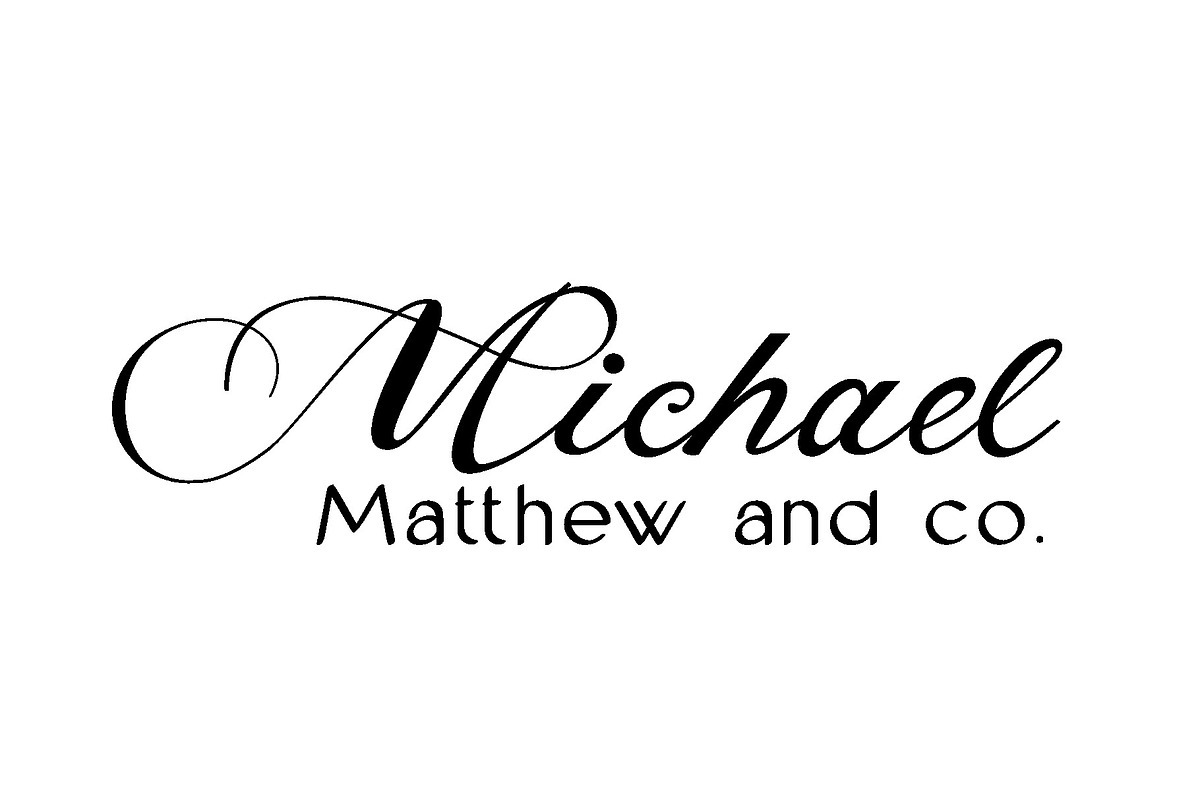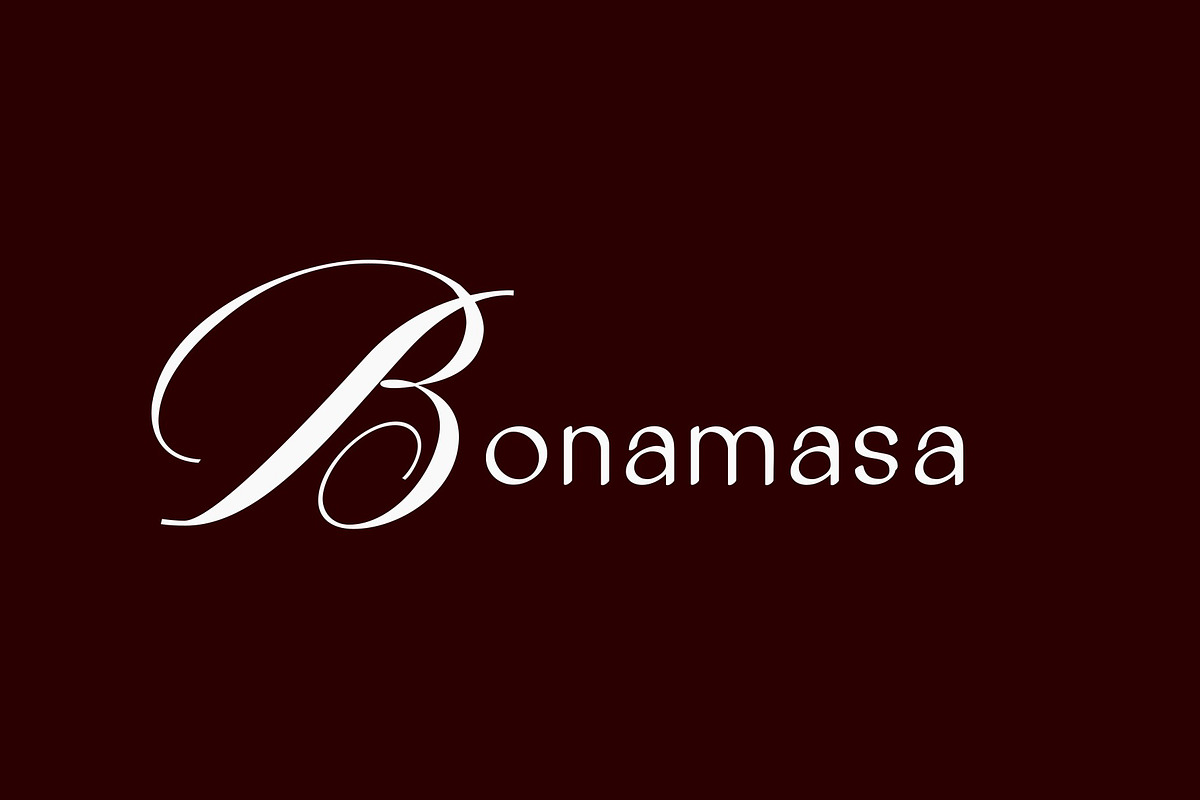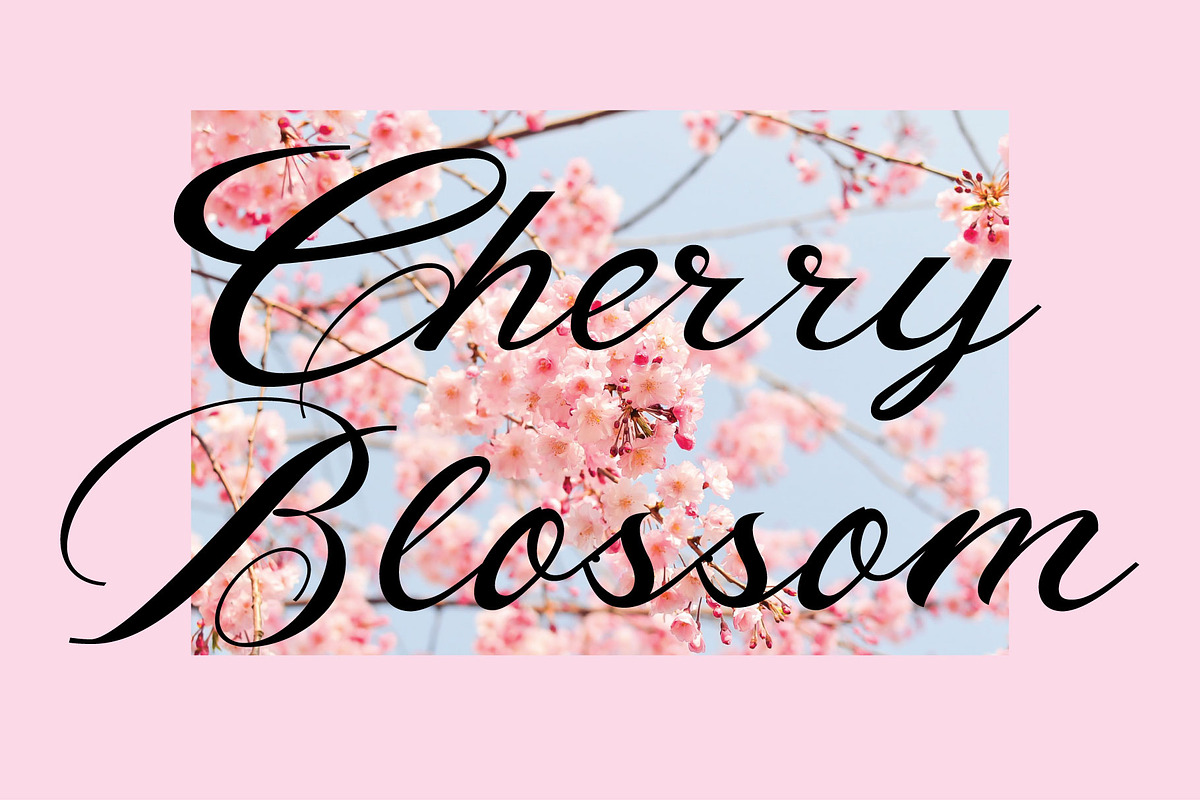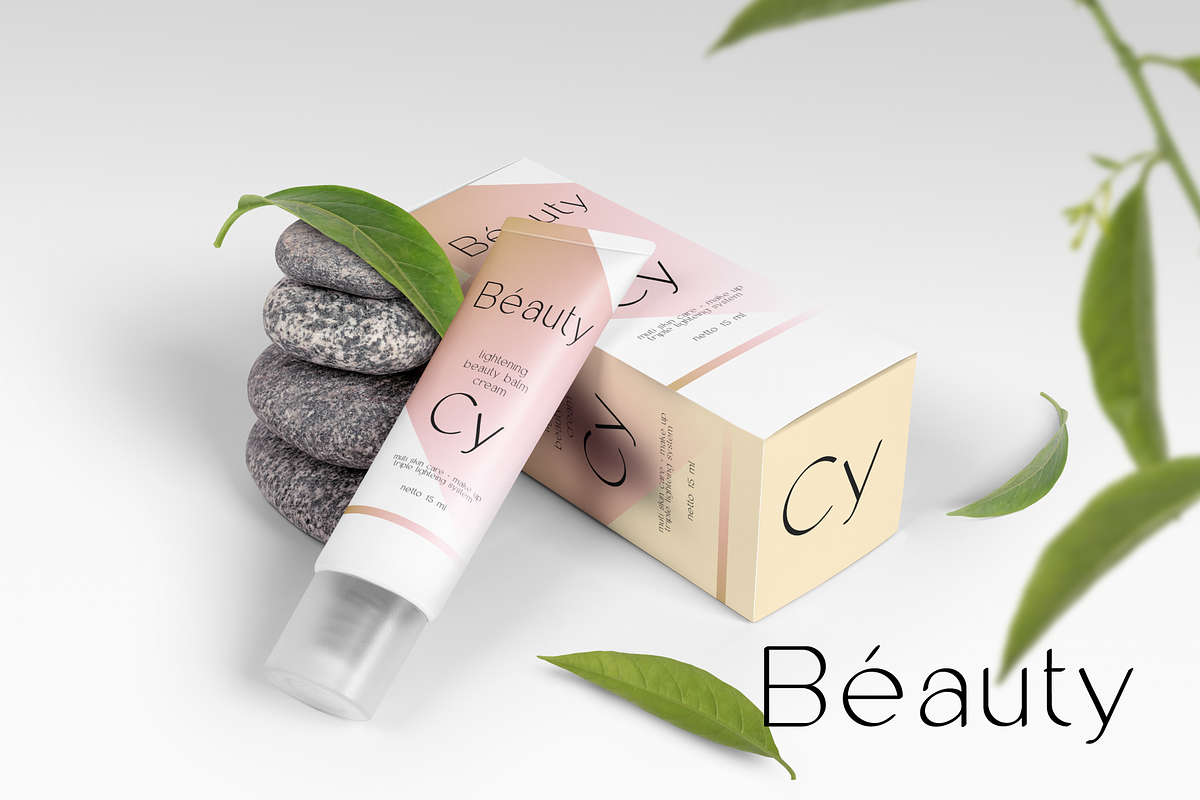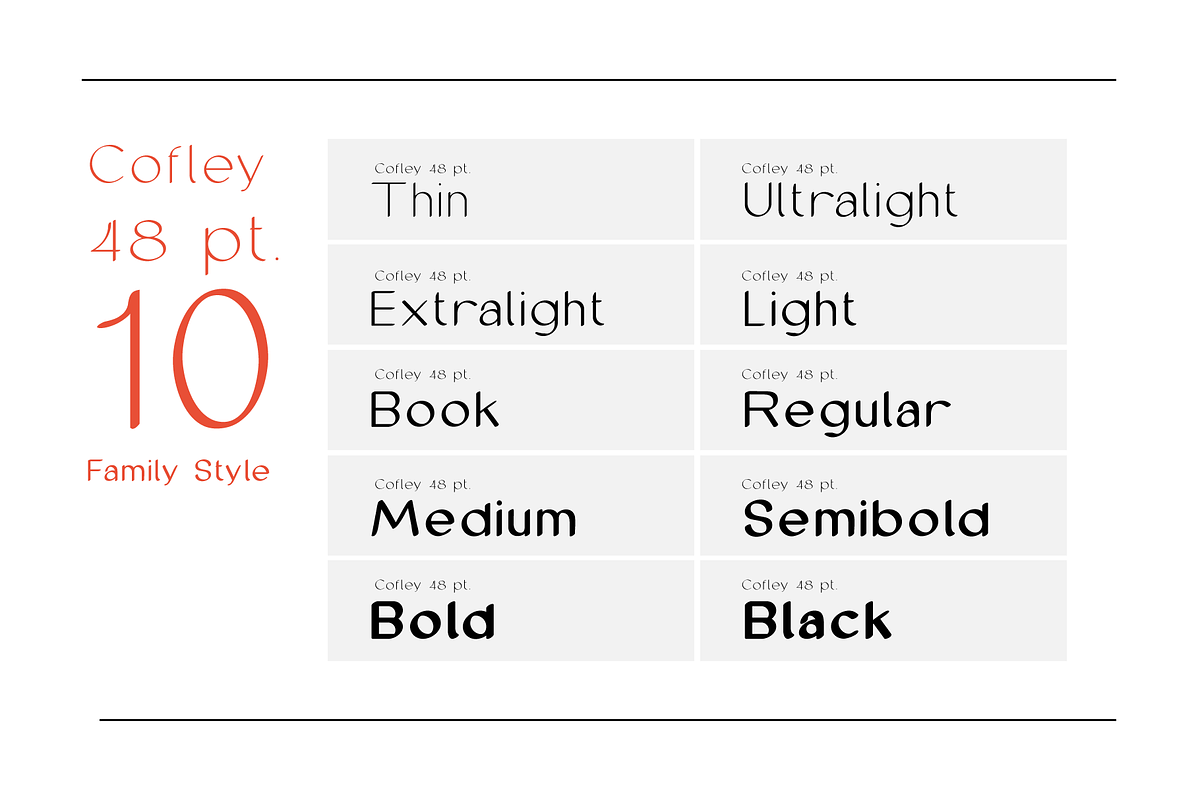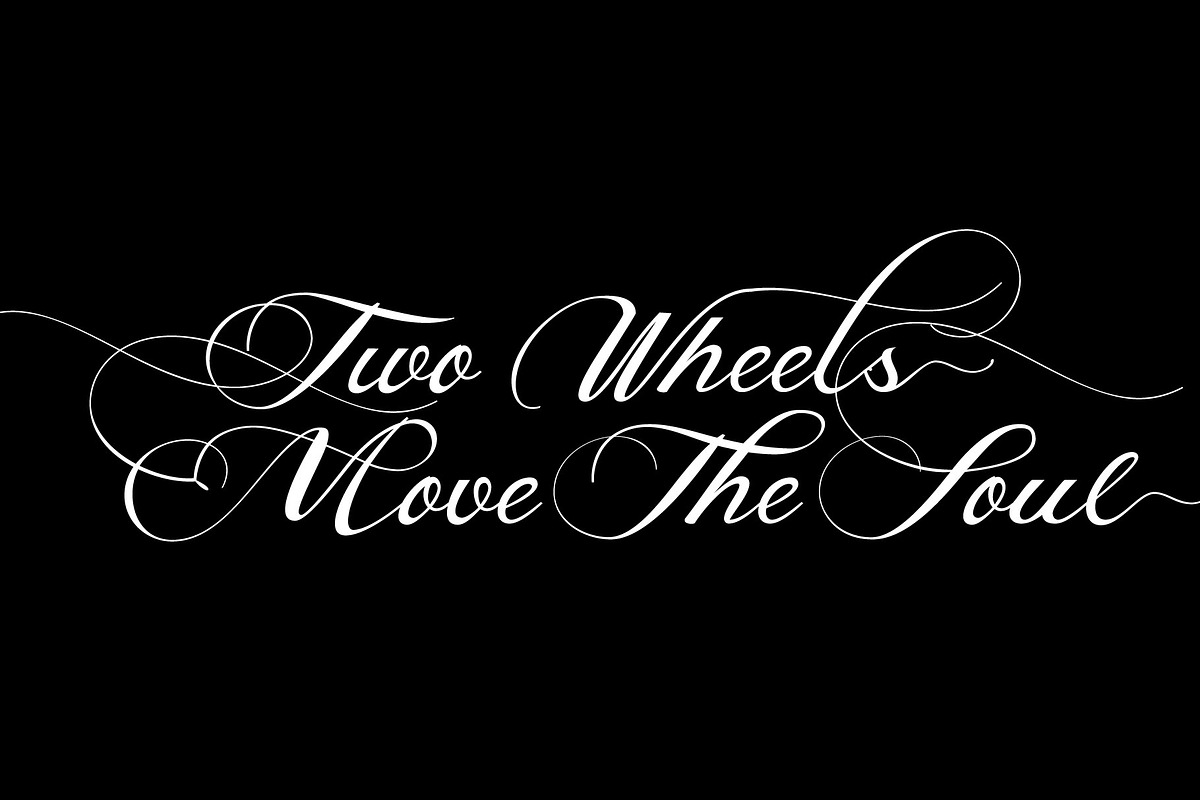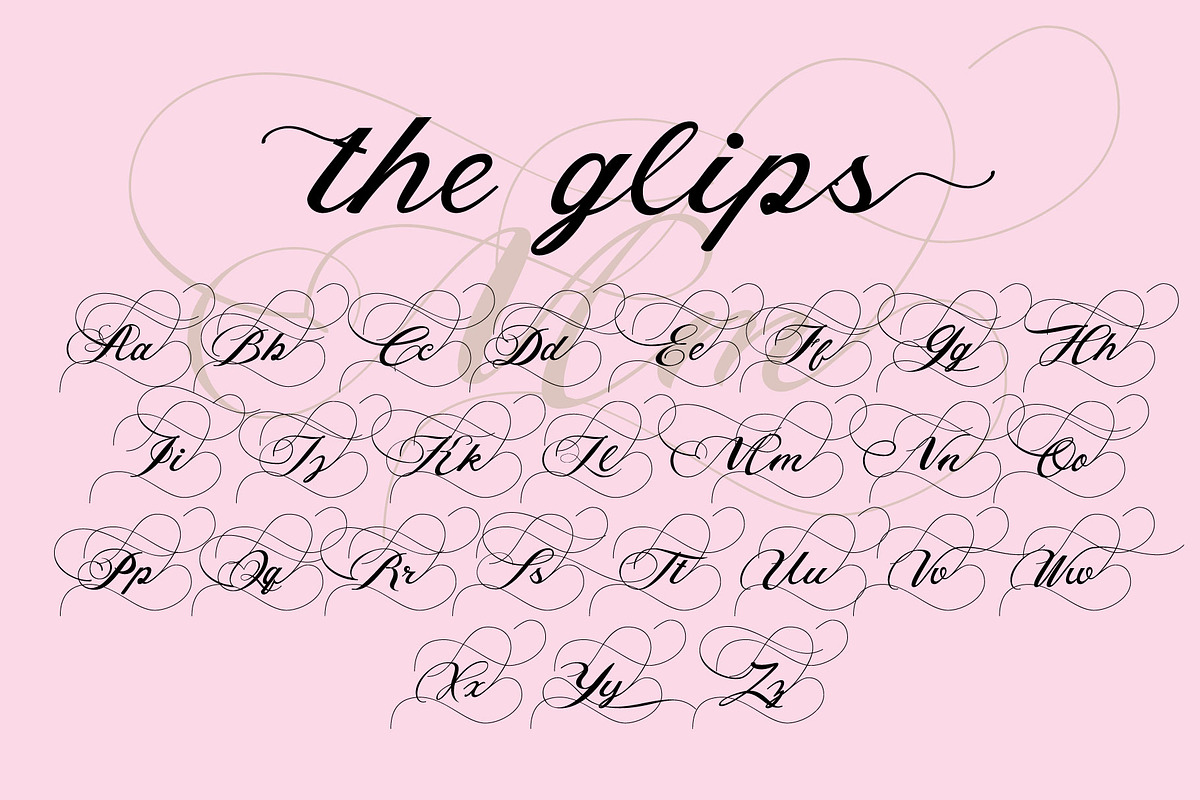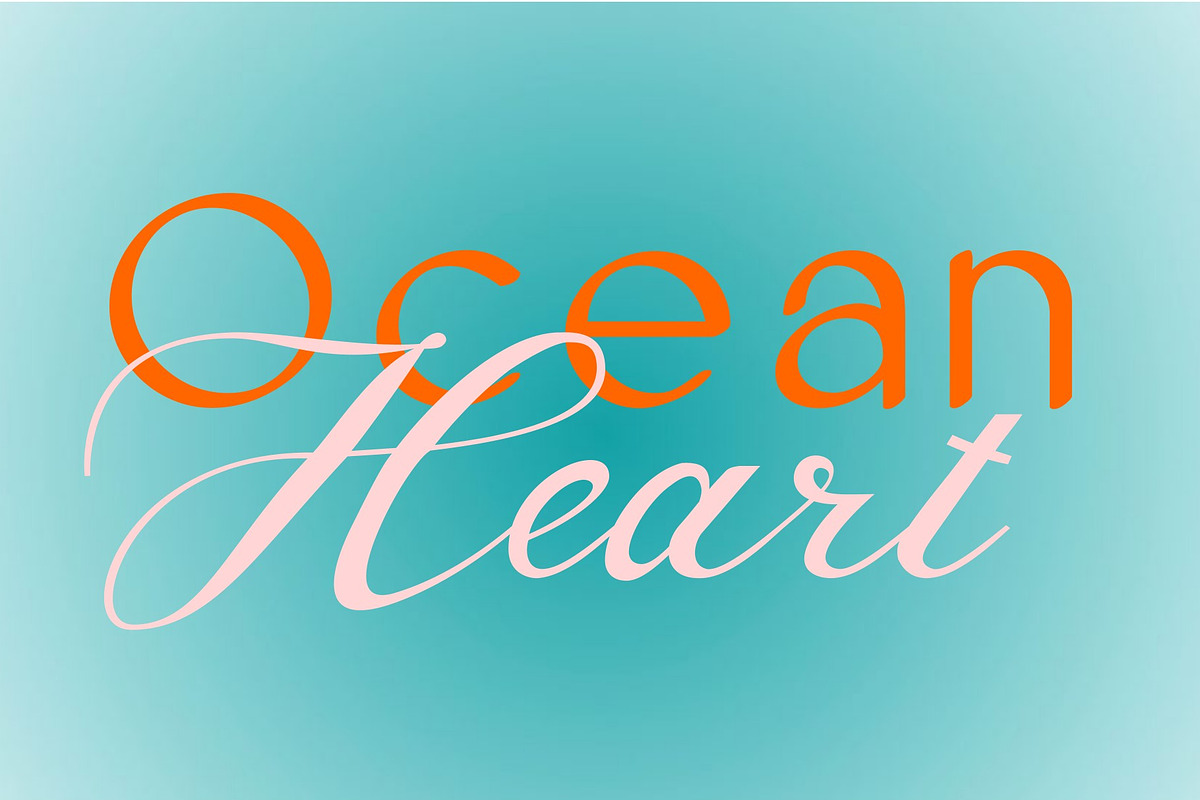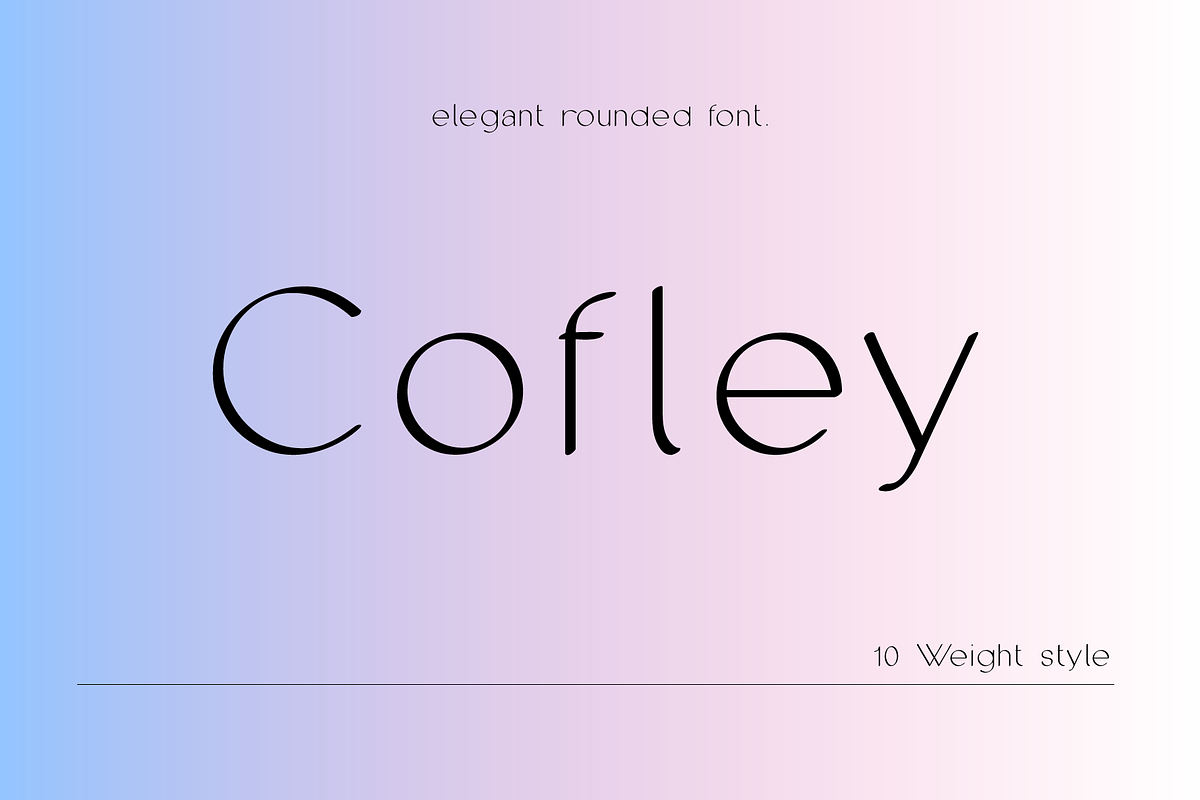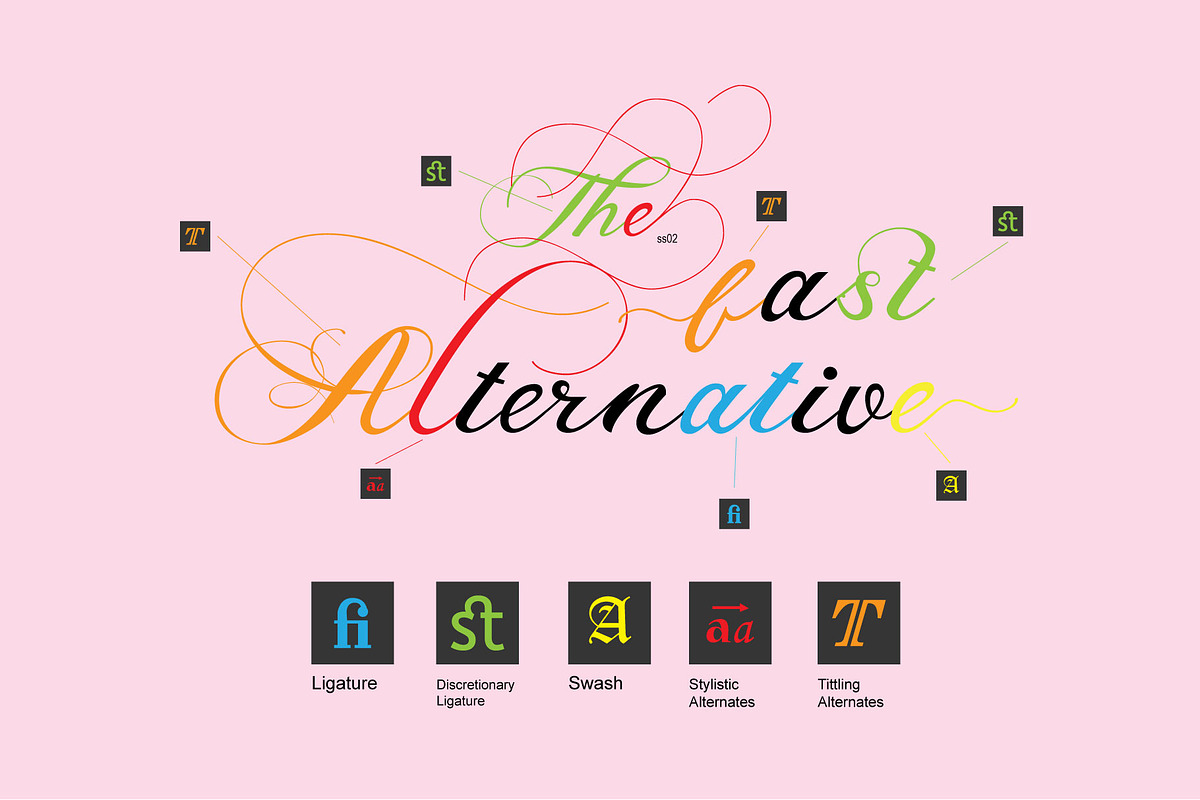
Font Duo Cofley Callidar
this is font duo pairing. coperplate callygraphy script and rounded sans serif font pairing. Cofley is modern, elegant rounded sans serif typeface. Consisting of 10 weights from Thin to Black with each 331 glyphs. Cofley contains Central Europe multi-lingual glyphs. It is suitable for display and reading purposes and has a modern and elegant touch.
Callidar is inspired by classic typography and brings its own unique style to any design project. This fantastic script font is best suited for headlines of all sizes, as well as for blocks of text that have both maximum and minimum variations. Whether it’s for web, print, moving images or anything else – Callidar will look spectacular.